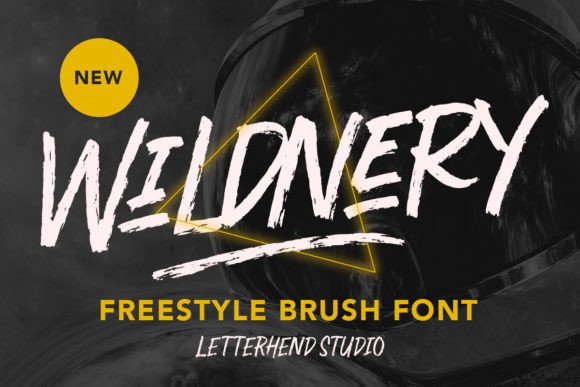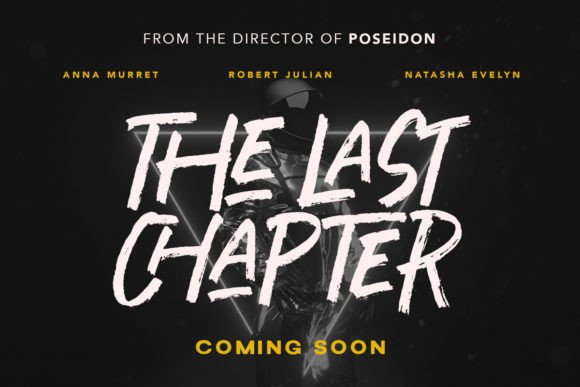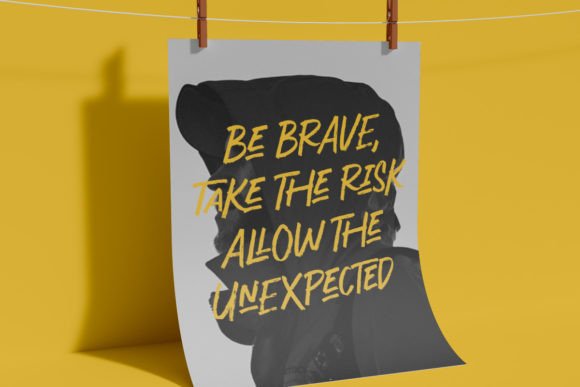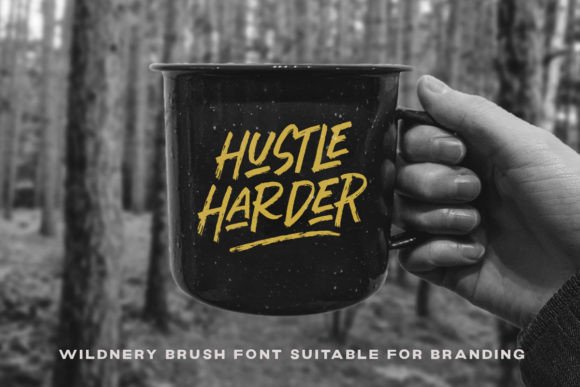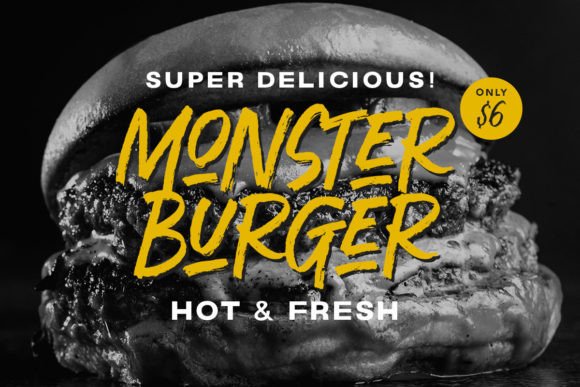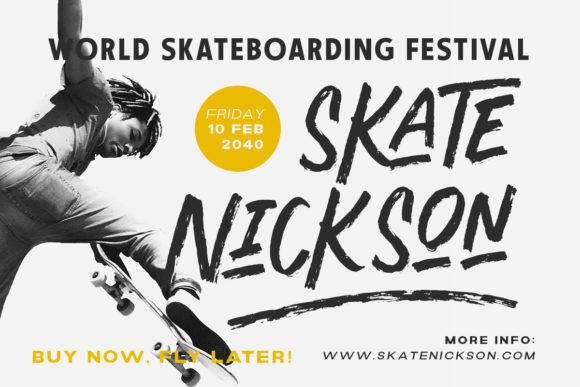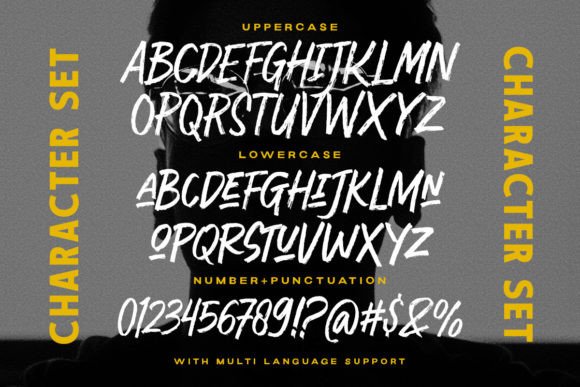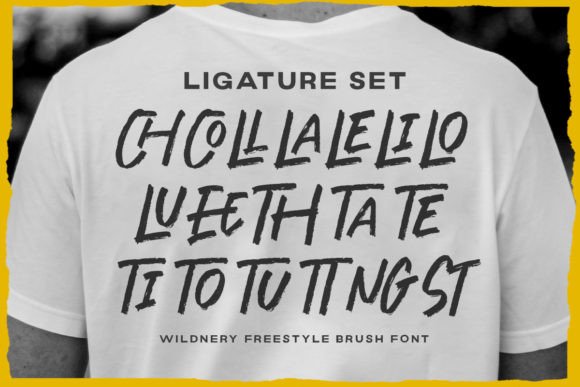
Wildnery Font
Wildnery is a freestyle textured brush font. Its organic and hand-drawn appearance adds a touch of authenticity to your designs, making it a perfect choice for projects that seek to stand out with a bold and creative statement.
This font is perfectly made to be applied especially in logos, and other various formal forms such as invitations, labels, logos, magazines, books, greeting/wedding cards, packaging, fashion, make-up, stationery, novels, labels, or any type of advertising purpose.